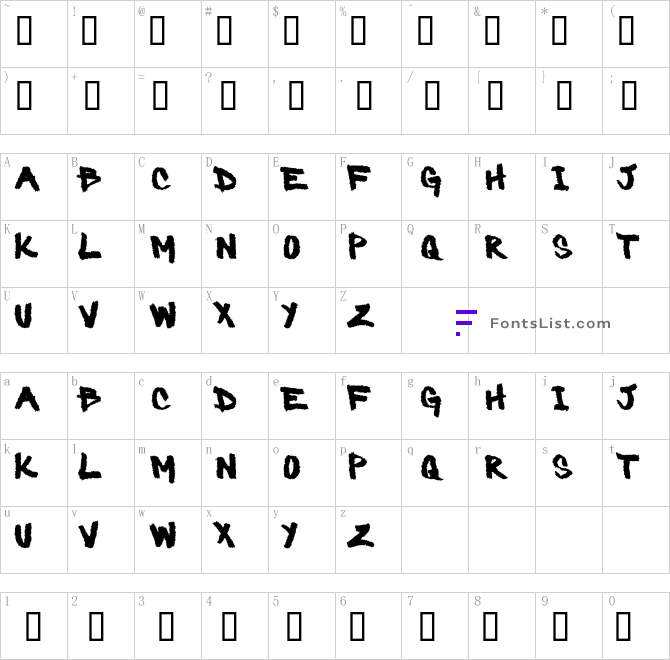
- Font Name:Barbaric
Barbaric.otf is a very beautiful artistic font, Barbaric.otf is widely used in the design and printing of various books and pictures,Barbaric.otf has a strong visual impact,Barbaric.otf is a commonly used font in newspapers, magazines and books, and is used in posters, e-commerce Poster design, store design, logo design, font design and other fields.Barbaric.